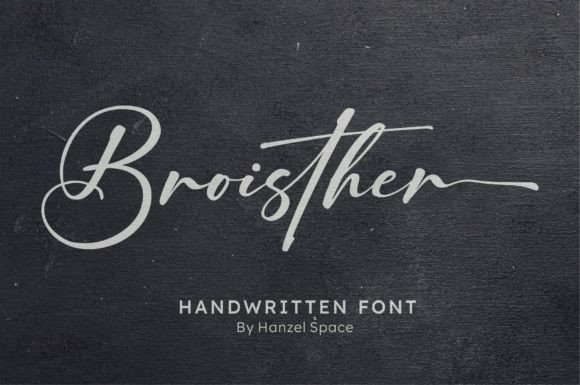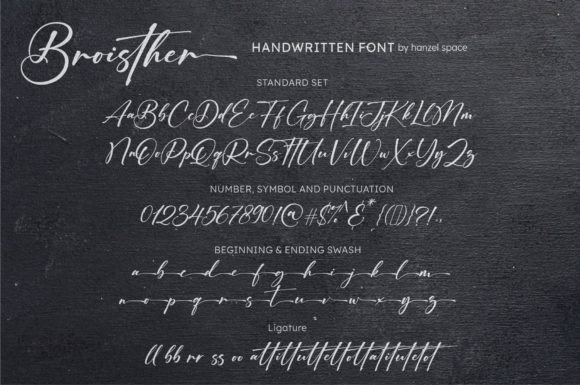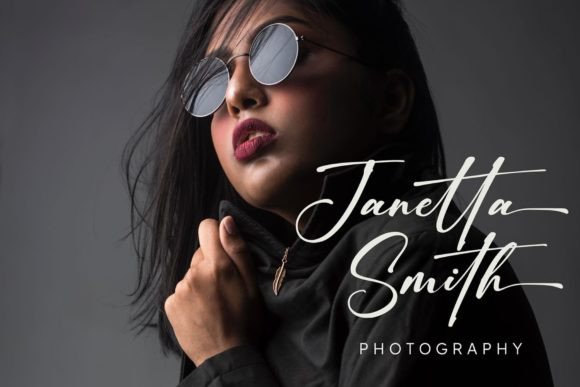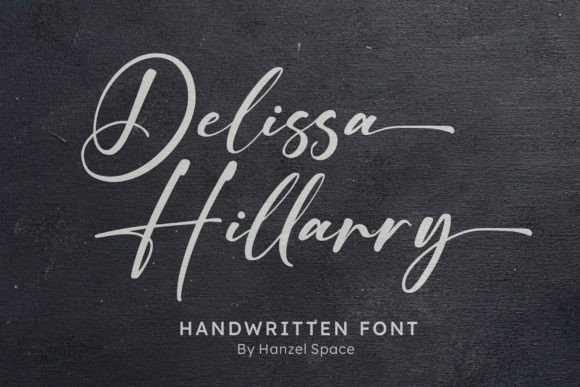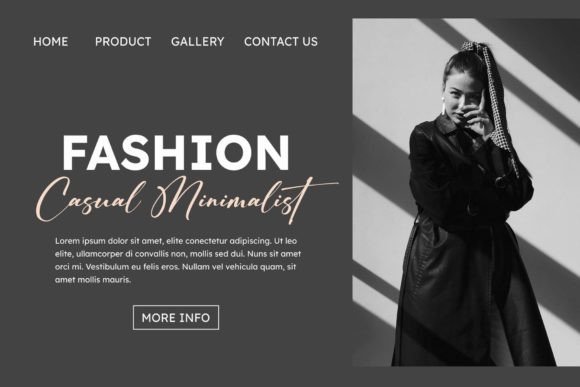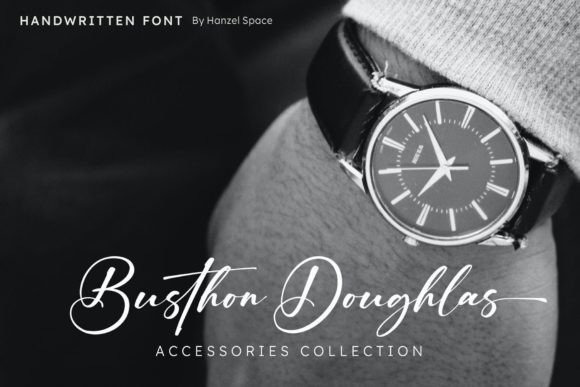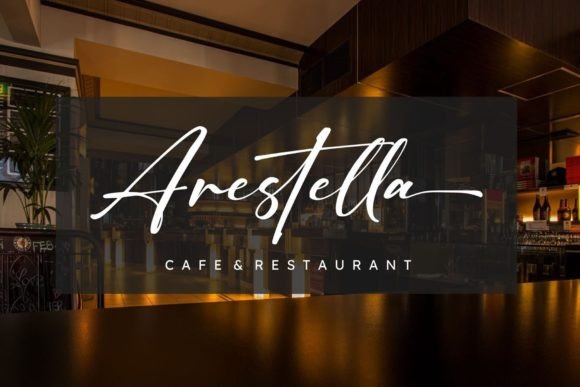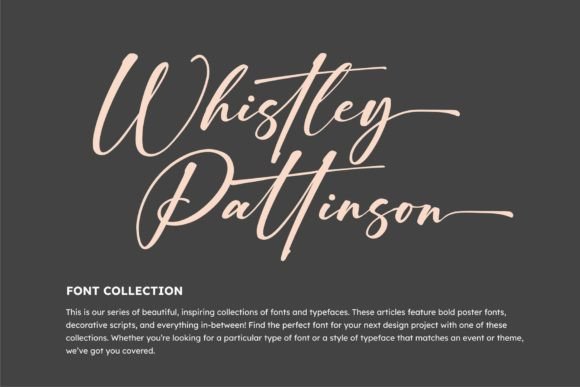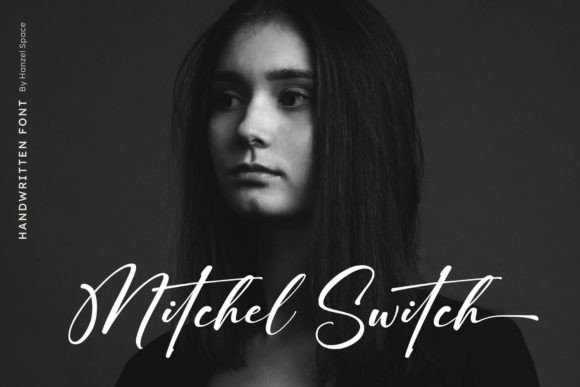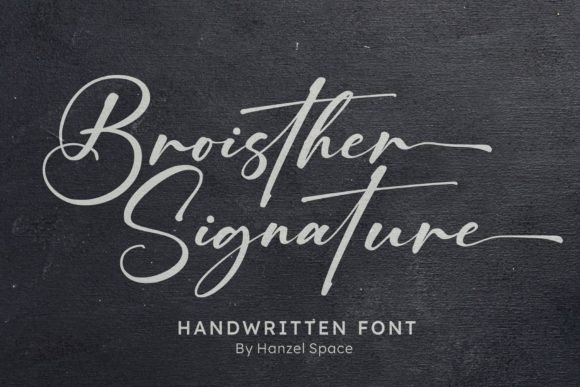
“Broisther”: Embrace the Artistry of Handwriting with Versatility and Aesthetic Charm
Unleash the beauty of handwritten expression with “Broisther,” a script font that seamlessly blends the charm of personal handwriting with a unique aesthetic touch. Designed for versatility across both web and print, “Broisther” emerges as a go-to choice for a myriad of creative projects, ranging from stationery and packaging to apparel, wedding materials, prints, quotes, social media graphics, planners, greeting cards, logos, branding, and beyond.
At the heart of “Broisther” lies the inspiration drawn from the art of handwriting, adding a genuine and personal quality to your designs. The fluid strokes and carefully crafted characters bring an organic, human touch that suits a variety of contexts. Whether you’re creating a wedding invitation, designing apparel, or crafting social media graphics, “Broisther” lends an authentic, handcrafted feel that resonates with your audience.
The versatility of “Broisther” shines through its adaptability to a wide array of design projects. From the tangible elegance of stationery to the visual impact of packaging and the personal touch of greeting cards, this font effortlessly navigates diverse applications. Its aesthetic appeal is equally at home in digital realms, making it a perfect choice for social media graphics, quotes, and any visual content that demands a touch of personality.
The PUA encoding of “Broisther” is a valuable feature, granting easy access to a plethora of glyphs and ligatures. This means that you have the freedom to explore and utilize the font’s full range of creative elements effortlessly. Whether you’re enhancing your logo, perfecting your branding, or customizing your wedding stationery, the PUA encoding ensures a seamless and enjoyable design process.
“Broisther” emerges as a creative powerhouse, making it a reliable choice for various design needs. The font’s ability to infuse your projects with a distinct aesthetic charm ensures that your creations stand out. It’s not just a font; it’s a tool that empowers your creativity, allowing you to bring a unique and personal touch to every project.
In conclusion, “Broisther” transcends the boundaries of a traditional script font. It’s an invitation to embrace the artistry of handwriting, amplified by its versatility and aesthetic charm. Whether you’re working on print or digital projects, let “Broisther” be the catalyst that elevates your designs to new heights of authenticity and visual allure.